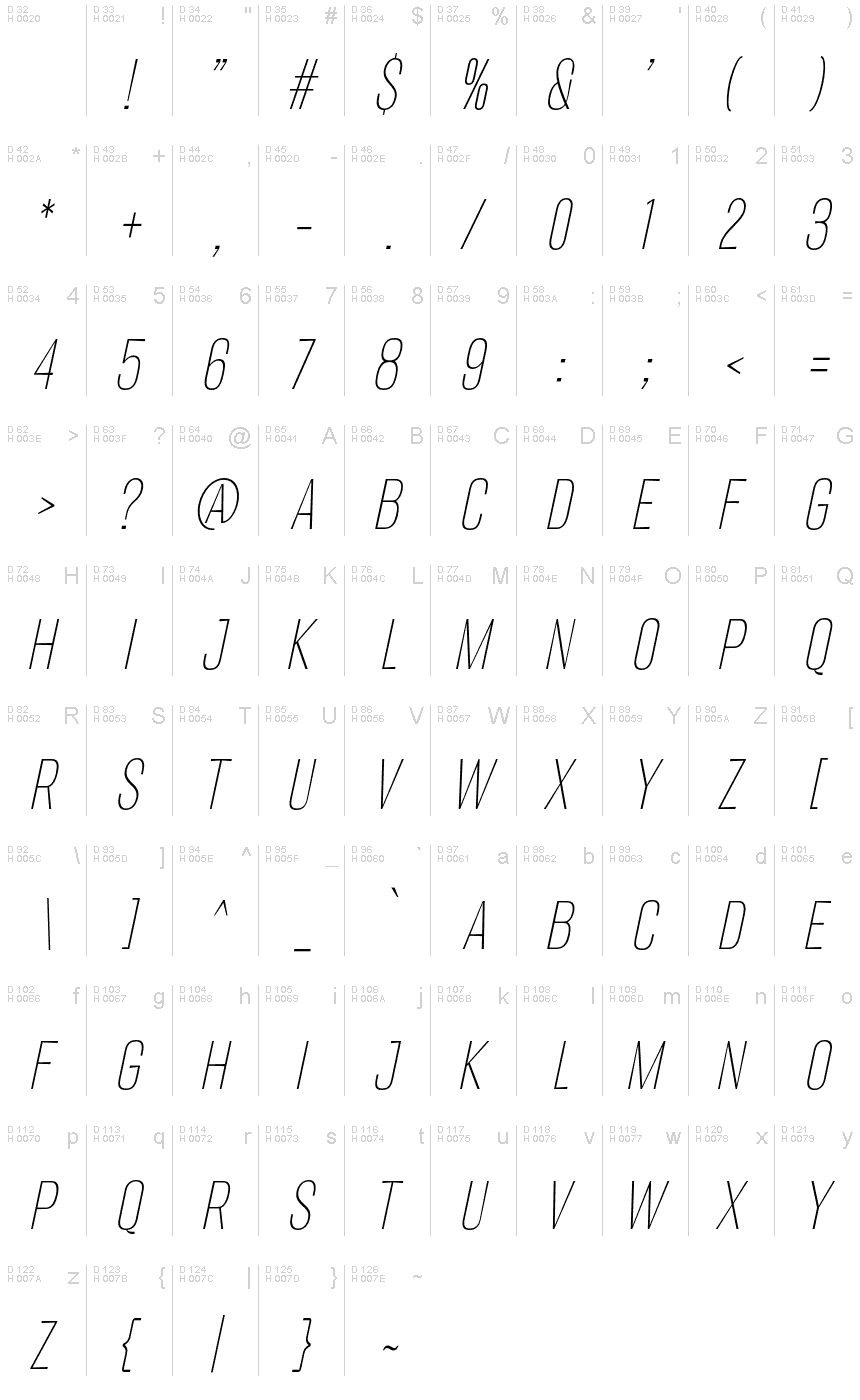
Migha-ThinCondensedCNTRSlant
Migha Thin Condensed CNTR Slant is the perfect sans serif font for projects that require a sleek and modern feel. This ultra-light typeface is ideal for designs that need to convey elegance and sophistication with its extra-condensed width. Created by Seniors Studio, this font boasts clean lines and a subtle slant that adds character without being too overpowering. Use Migha Thin Condensed CNTR Slant on your website, business cards, or any branding material to create a minimalistic yet stylish look. This versatile font is suitable for a wide range of projects, from fashion magazines to tech startups.